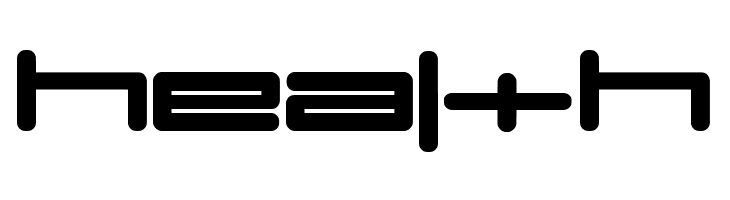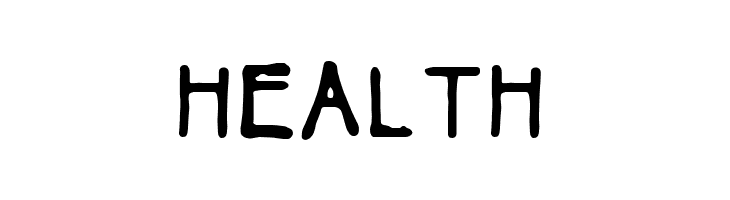
( Fonts by David Kerkhoff - www.hanodedphotography.com )
An elegant, handwritten script font with ornate details and flowing curves.
( Fonts by Bartek Nowak - www.nowak.tv/fontoholic/ )
A casual, handwritten font with fluid and organic strokes.
( Fonts by Arkandis Digital Foundry )
A classic serif font with elegant strokes and balanced contrast.
( CLIMAXED )
A bold, geometric font with unique cutouts and a modern aesthetic.
( Fonts by backpacker.gr )
A bold, pixelated font with a retro, digital aesthetic.
( Fonts by backpacker.gr )
A bold, blocky font with a playful, chunky design.
( Fonts by Kreative Korporation - www.kreativekorp.com )
A pixelated, monospaced font with a retro digital style.
( Fonts by Kreative Korporation - www.kreativekorp.com )
A pixelated, monospaced font with a retro, digital aesthetic.
( Fonts by Kreative Korporation - www.kreativekorp.com )
A pixelated, monospaced font with a retro digital style.
( Fonts by Kreative Korporation - www.kreativekorp.com )
A pixelated, monospaced font with a retro digital aesthetic.
A playful decorative font made of diverse heart shapes.
( Fonts by Steve Cloutier - www.cloutierfontes.ca )
A bold, brush-stroke font with a hand-painted, dynamic appearance.
( Fonts by Adien Gunarta - fontasticindonesia.blogspot.com )
A bold, geometric font with a modern and industrial style.
A clean, modern typeface with geometric influences and excellent readability.
A modern, clean sans-serif font with geometric shapes and excellent readability.
A bold, modern sans-serif font with clean lines and strong visual impact.
A modern, semi-bold sans-serif font with clean lines and excellent readability.
A modern, light sans-serif font with low contrast and excellent readability.
A modern, geometric sans-serif font with excellent readability.
A bold, modern sans-serif font with clean lines and strong readability.
( Fonts by CloutierFontes )
A bold, high-contrast font with dramatic strokes and elegant curves.
( Fonts by Kate Matheson )
A playful handwritten font with a casual and friendly style.
A modern, monospaced font with clean lines and even spacing, perfect for coding.